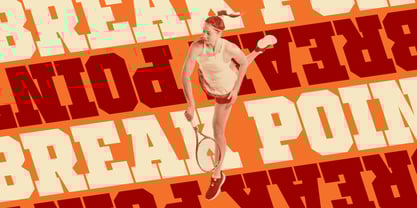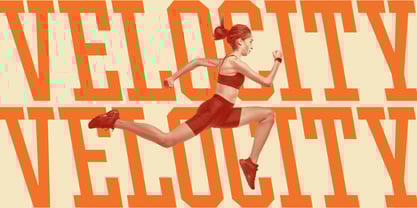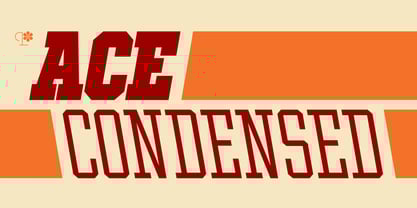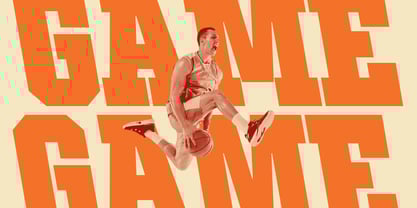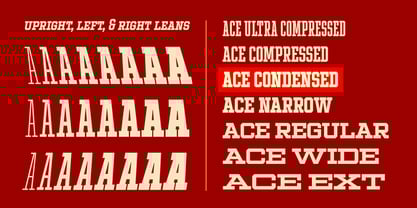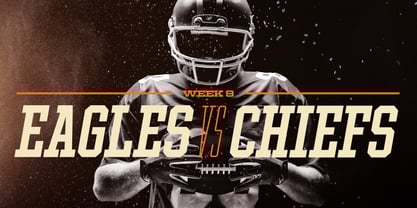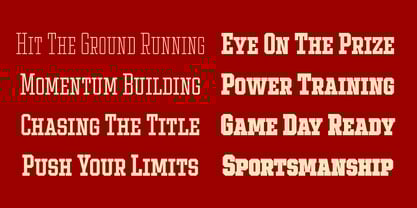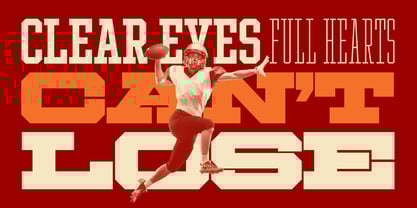
Ace Condensed
by Positype
The Ace Condensed Font Family was designed by Neil Summerour and published by Positype. Ace Condensed contains 24 styles and family package options.
Collegiate aesthetics, professional polish, and no need for NIL—Ace delivers a versatile superfamily in a familiar package. The serifed version of Ace includes seven widths, eight weights, and both upright and left- and right-leaning variants, ensuring a perfect fit and style for any team. This typeface doesn’t cut corners; instead of using caps in the lowercase set, it features thoughtfully crafted, proportionally accurate small caps for added versatility. Ace supports most Latin-based languages, as well as Greek and Vietnamese, and comes equipped with practical OpenType features, including alternative letter shapes, fractions, and more.
Ace Condensed